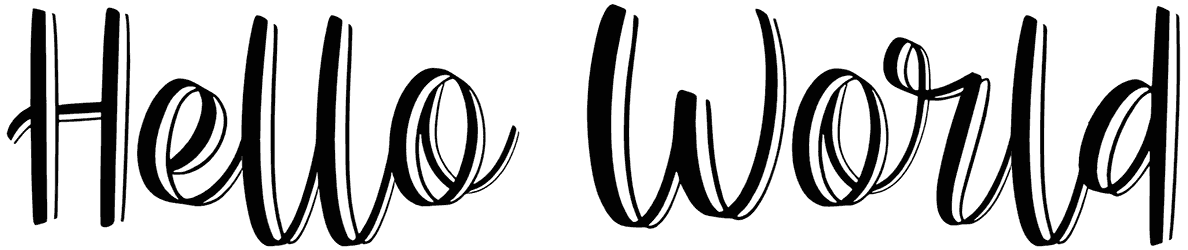
Hello World Font
Relaxed and shady, a script font, Hello World, is a terrific choice for conveying a positive atmosphere to your audience. Grab this elegant font and put it to use in packaging, garment, poster designs, and any other project that calls for a warm and inviting visual impact.